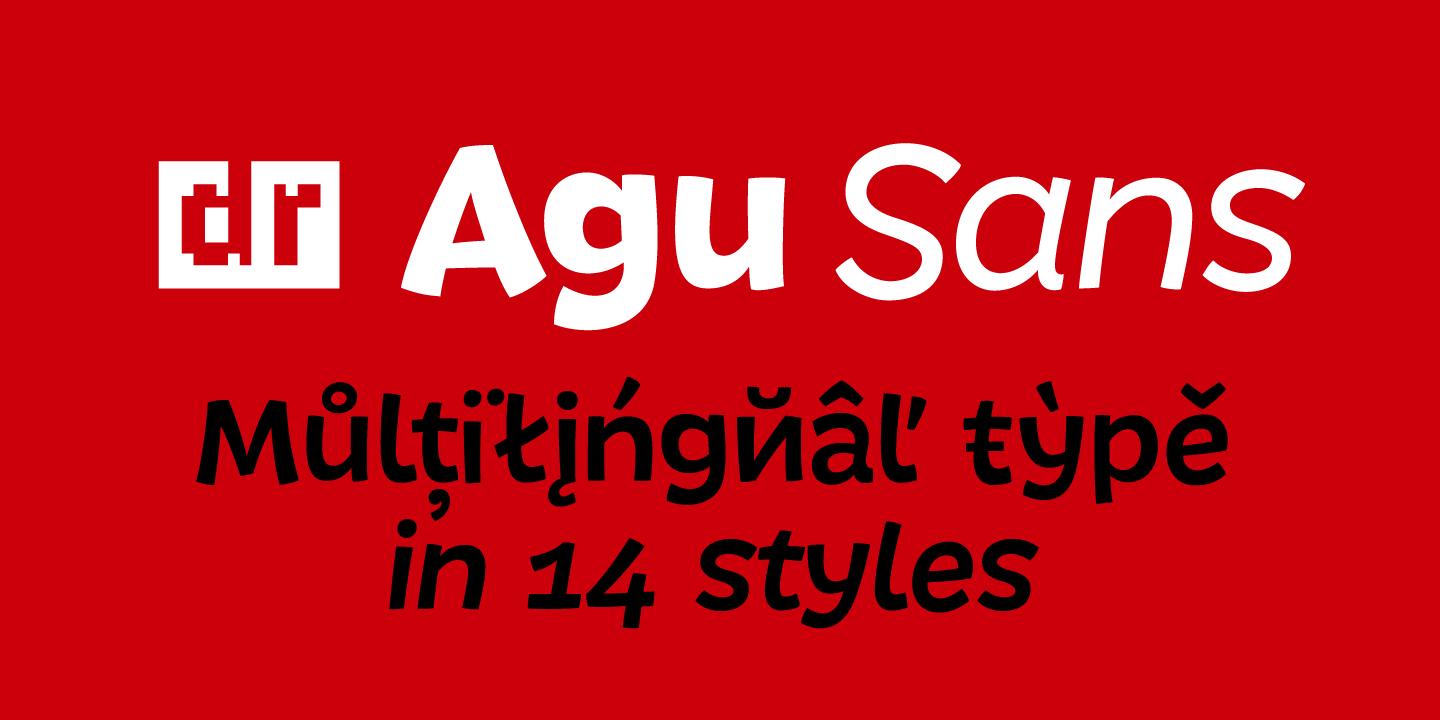
DR Agu Sans Font is ideal for medical practice branding, healthcare communications, pharmaceutical packaging, clinical research documentation, medical device marketing, wellness center signage, professional healthcare presentations, medical education materials, hospital system communications, and therapeutic service advertising.
What makes DR Agu Sans Font exciting is its clinical precision that perfectly captures the professional competence and medical expertise found in healthcare excellence and therapeutic care delivery. This typeface features clean letterforms with medical proportions and healthcare-inspired details that evoke the trust and reliability essential for patient care and medical professional communication. The font's professional personality and medical authenticity make it ideal for healthcare brands seeking to convey expertise, trustworthiness, and the clinical excellence that comes from medical training and healthcare dedication.
DR Agu Sans Font family includes clinical weight variations and medical alternatives that enhance its healthcare appeal while providing design flexibility for medical and wellness applications. The font features professional ligatures, medical-themed ornaments, and clinical character variations that create authentic healthcare atmosphere for medical and wellness branding.
Healthcare organizations and medical professionals consistently select DR Agu Sans Font Free Download for projects requiring authentic medical appeal and healthcare credibility. The font's clinical character excels in applications targeting patients, medical professionals, and healthcare communities who appreciate genuine medical expertise and professional healthcare delivery. Whether you're designing for medical practices, healthcare systems, or wellness organizations, this professional typeface delivers the medical authenticity and clinical excellence that resonates with audiences seeking genuine healthcare expertise and the professional competence that defines medical excellence and patient care dedication throughout the healthcare industry.